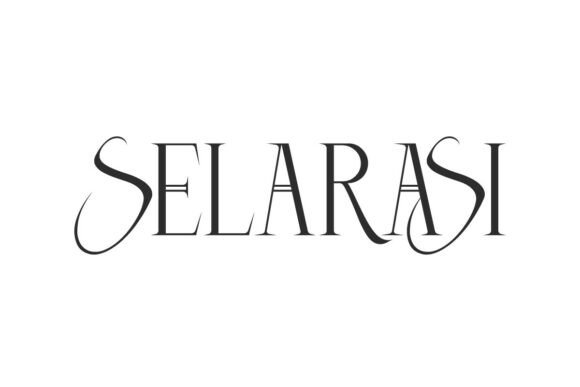
Selarasi Font: Elevate Your Design with Elegance and Luxury
In the world of typography, fonts play a crucial role in conveying the tone and aesthetic of a design. Among the numerous fonts available, Selarasi Font stands out for its elegant, luxurious, and versatile style. This comprehensive article will delve into the features, benefits, and uses of Selarasi Font, exploring how it can elevate your designs to new heights.
What is Selarasi Font?
Selarasi Font is a sophisticated typeface that boasts a light and versatile style, making it perfect for a wide range of design applications. Its base letters resemble a minimalist serif, while other options feature a beautiful, curved style. This unique blend of simplicity and elegance sets Selarasi Font apart from other fonts, making it an excellent choice for designers seeking to create stunning visual content.
Key Features of Selarasi Font
- Elegant and Luxurious: Selarasi Font exudes sophistication and refinement, making it ideal for high-end designs.
- Light and Versatile: The font’s light style ensures that it can be used in various design contexts, from digital media to print materials.
- Minimalist Serif Base: The base letters of Selarasi Font feature a minimalist serif, providing a clean and simple foundation for designs.
- Beautiful, Curved Style Options: In addition to the minimalist serif base, Selarasi Font offers curved style options, allowing designers to add a touch of elegance and sophistication to their work.
Design Applications for Selarasi Font
Selarasi Font’s versatility makes it suitable for a wide range of design applications. Here are some of the ways you can use this elegant font:
- Brochures: Create stunning brochures that showcase your products or services with Selarasi Font.
- Cards: Design beautiful greeting cards, business cards, or postcards using Selarasi Font.
- Logos: Use Selarasi Font to create elegant and memorable logos for your brand.
- Mockups: Create realistic mockups of your designs using Selarasi Font.
- Social Media Posts: Elevate your social media presence with Selarasi Font, perfect for creating engaging and stylish posts.
- Stationery: Design professional-looking stationery, including letterheads, invoices, and envelopes.
- Stickers: Create eye-catching stickers using Selarasi Font.
- Magazine Designs: Use Selarasi Font to create stunning magazine designs, including titles, headings, and body text.
- Watermarks: Add a touch of elegance to your images with Selarasi Font watermarks.
- Web Design: Use Selarasi Font to create beautiful and responsive web designs.
Tips and Tricks for Using Selarasi Font
To get the most out of Selarasi Font, here are some tips and tricks to keep in mind:
- Pair with Other Fonts: Experiment with pairing Selarasi Font with other fonts to create visually appealing combinations.
- Adjust Font Size and Weight: Adjust the font size and weight to suit your design needs.
- Use in Combination with Images: Combine Selarasi Font with high-quality images to create stunning visual content.
- Experiment with Colors: Try out different color schemes to find the perfect match for your design.
Benefits of Using Selarasi Font
Selarasi Font offers numerous benefits for designers, including:
- Unique and Elegant Style: Selarasi Font’s unique style sets it apart from other fonts, making it perfect for designers seeking to create distinctive designs.
- Versatility: The font’s versatility makes it suitable for a wide range of design applications.
- Easy to Read: Selarasi Font is easy to read, making it perfect for body text and other applications where readability is crucial.
- High-Quality Design: Selarasi Font is designed to high standards, ensuring that your designs look professional and polished.
In conclusion, Selarasi Font is an elegant, luxurious, and versatile font that offers a wide range of design possibilities. Its unique style, versatility, and high-quality design make it perfect for designers seeking to create stunning visual content. Whether you’re designing brochures, logos, social media posts, or web designs, Selarasi Font is an excellent choice. With its ease of use and flexibility, Selarasi Font is sure to become a staple in your design toolkit.